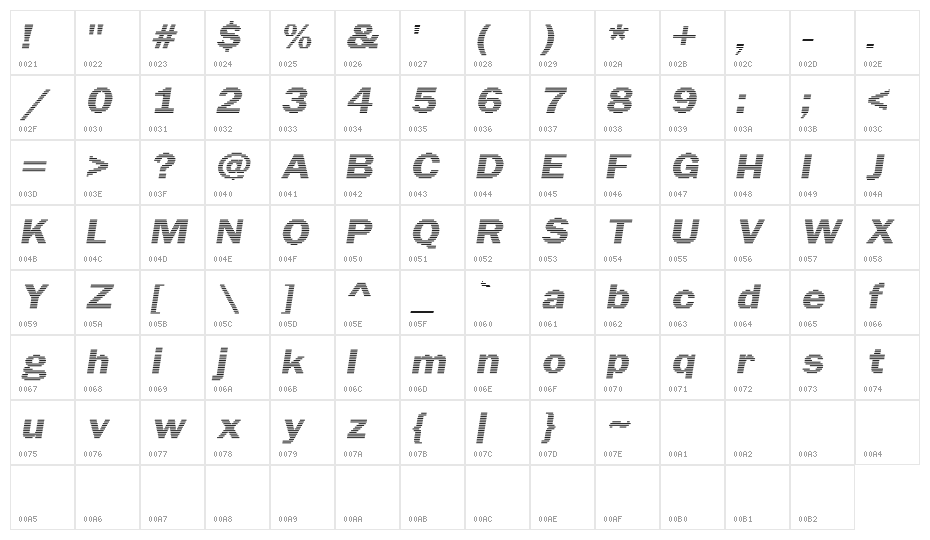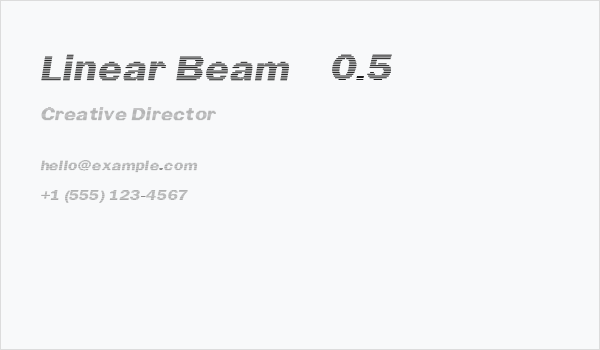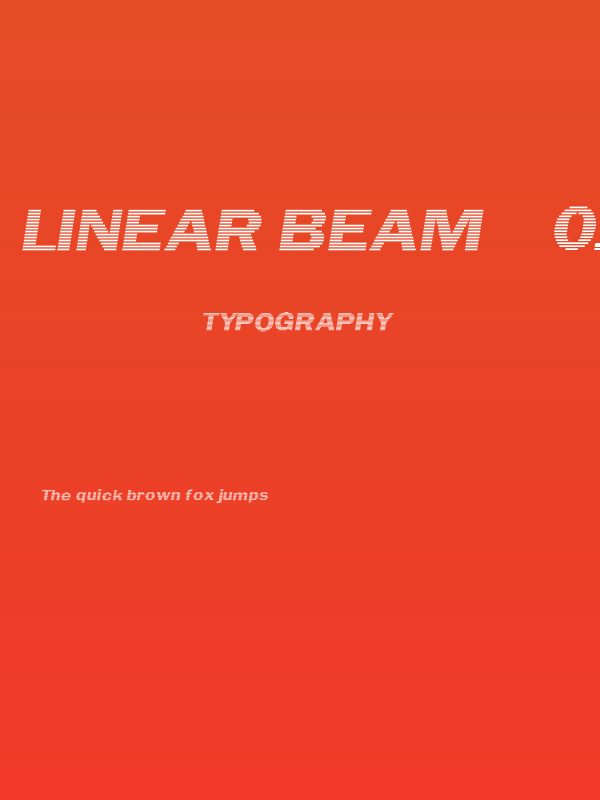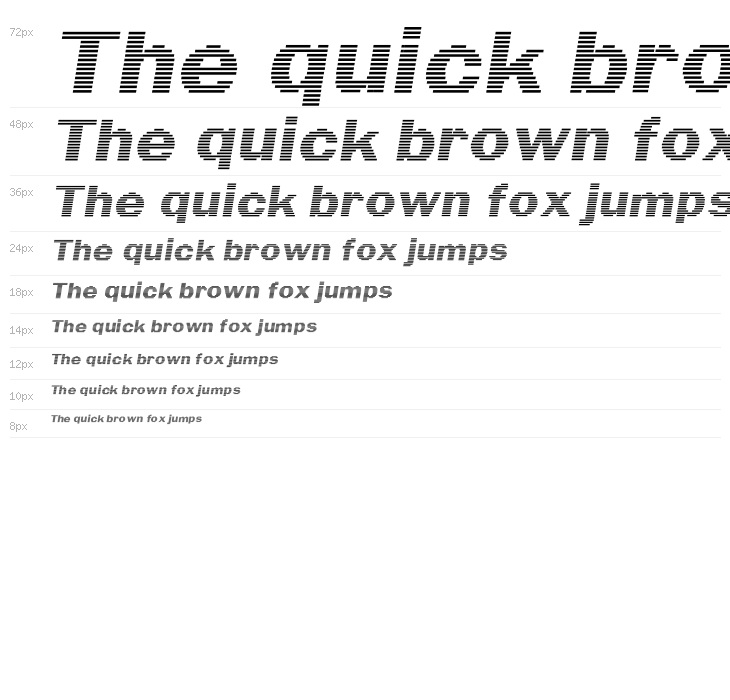
Linear Beam 0.5 Font
Linear Beam 0.5 Description
This font features a distinctive linear pattern that gives it a dynamic and modern appearance. The characters are composed of horizontal lines that create a sense of movement and energy. Each letter and number is crafted with precision, maintaining a consistent line thickness throughout. The font is bold and italicized, adding to its striking visual impact. The spacing between characters is normal, ensuring readability while maintaining its unique style. This font is ideal for projects that require a futuristic or tech-inspired aesthetic.
| Proposed Projects | Ideal for technology branding, futuristic posters, digital art, and innovative product packaging. |